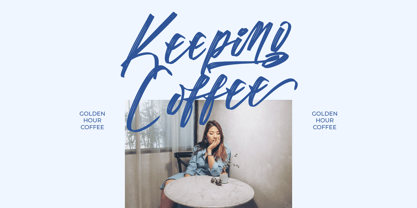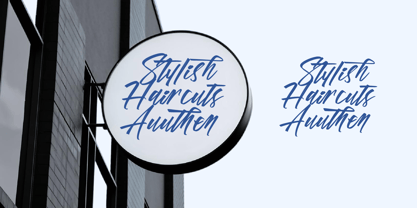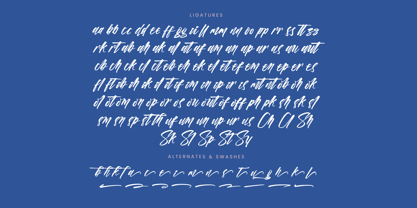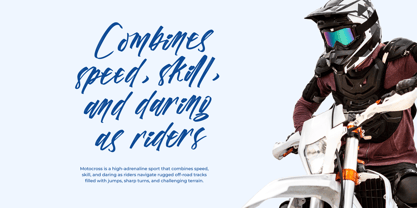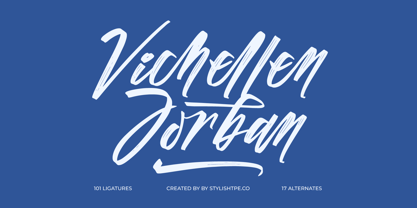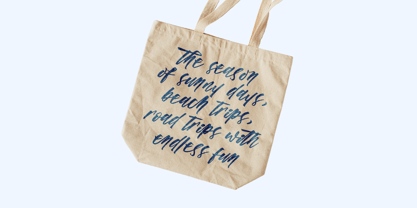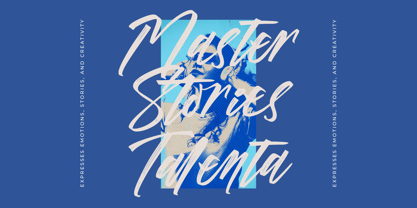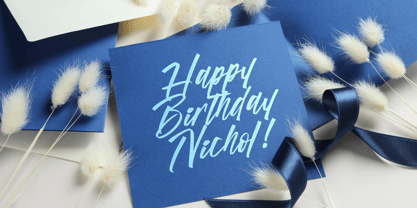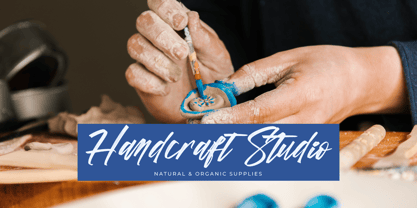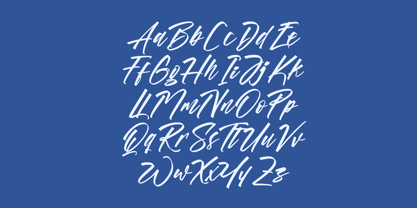
Vichellen Jordan
by Stylishtype Studio
The Vichellen Jordan Font Family was designed by Heru Utama Putra and published by Stylishtype Studio. Vichellen Jordan contains 2 styles and family package options. More about this family
Vichellen Jordan - Modern Brush Font , from Stylishtype , Suitable for any projects such as: logos, branding projects, homeware designs, product packaging, mugs, quotes, posters, shopping bags, t-shirts, book covers, name card, invitation cards, greeting cards, label, photography, watermark, special events, and all your other luxury and beautiful projects that need a Luxury Script taste.